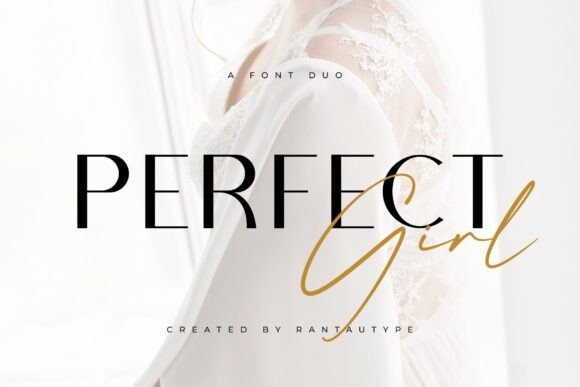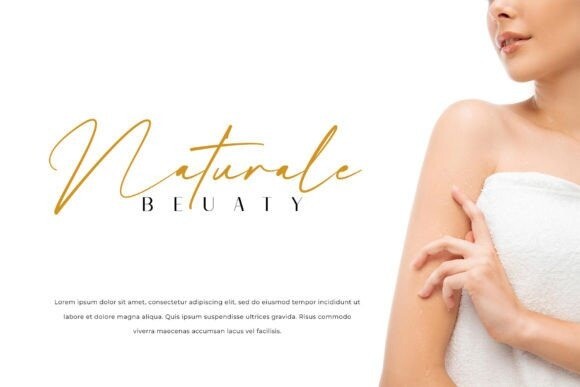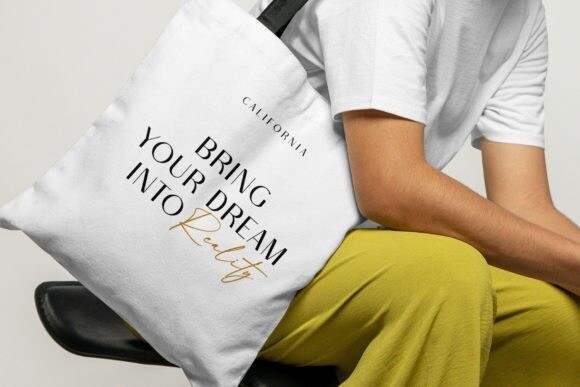
Perfect Girl Font
Perfect Girl Font is a spectacular duo font (serif and script). Incredibly versatile, this font fits a wide pool of designs, elevating them to the highest levels. Add this font to your favorite creative ideas and notice how it makes them come alive!